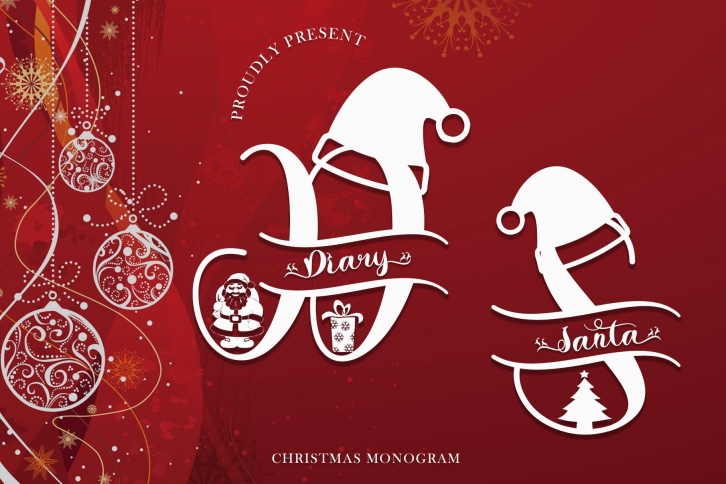
Diary Santa Monogram is a whimsical script font with a relaxed theme, featuring a lovely style. This font is PUA encoded which means you can access all of the glyphs and swashes with ease!
Fall in love with its incredibly versatile style and use it to create spectacular designs!